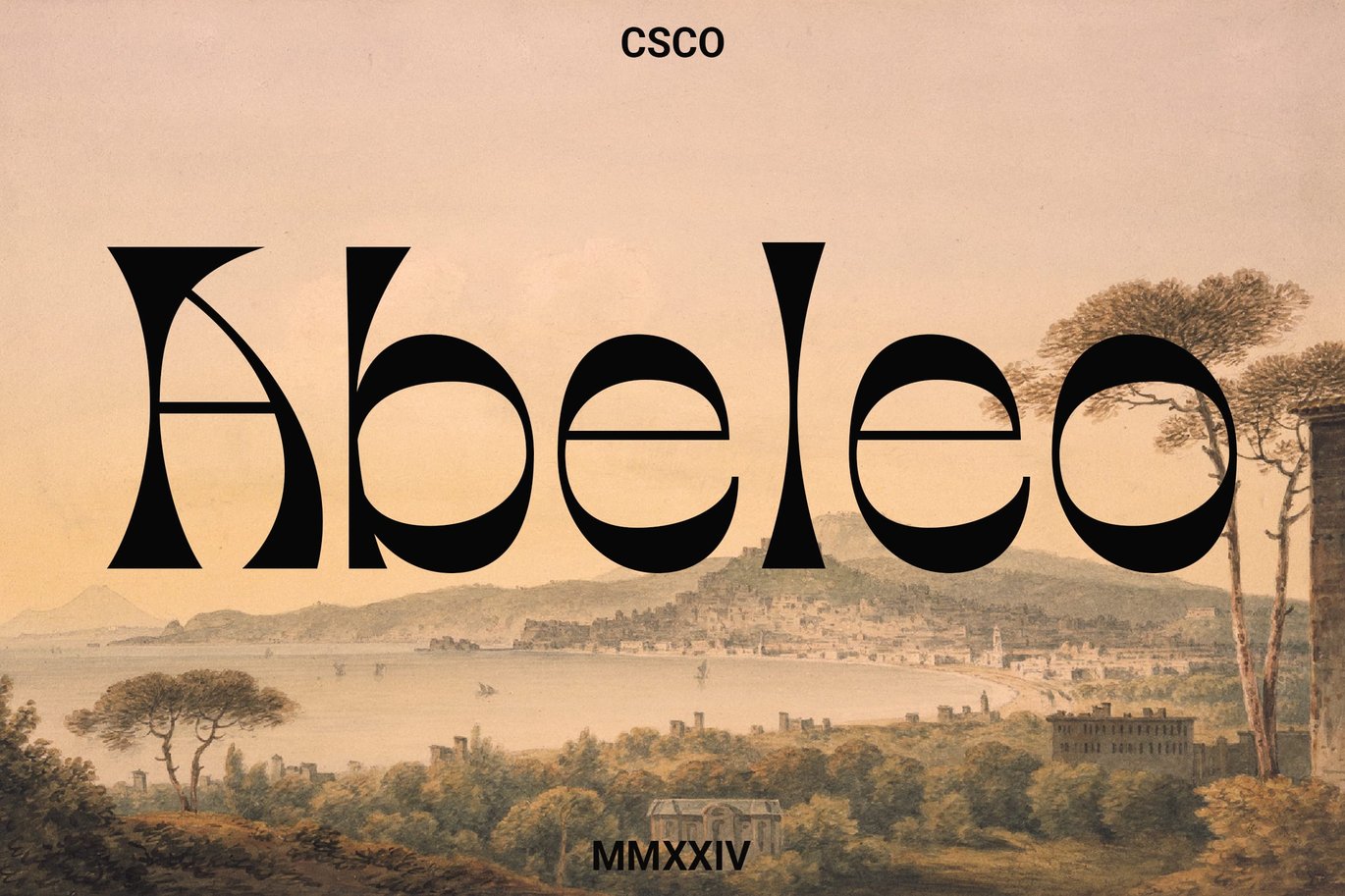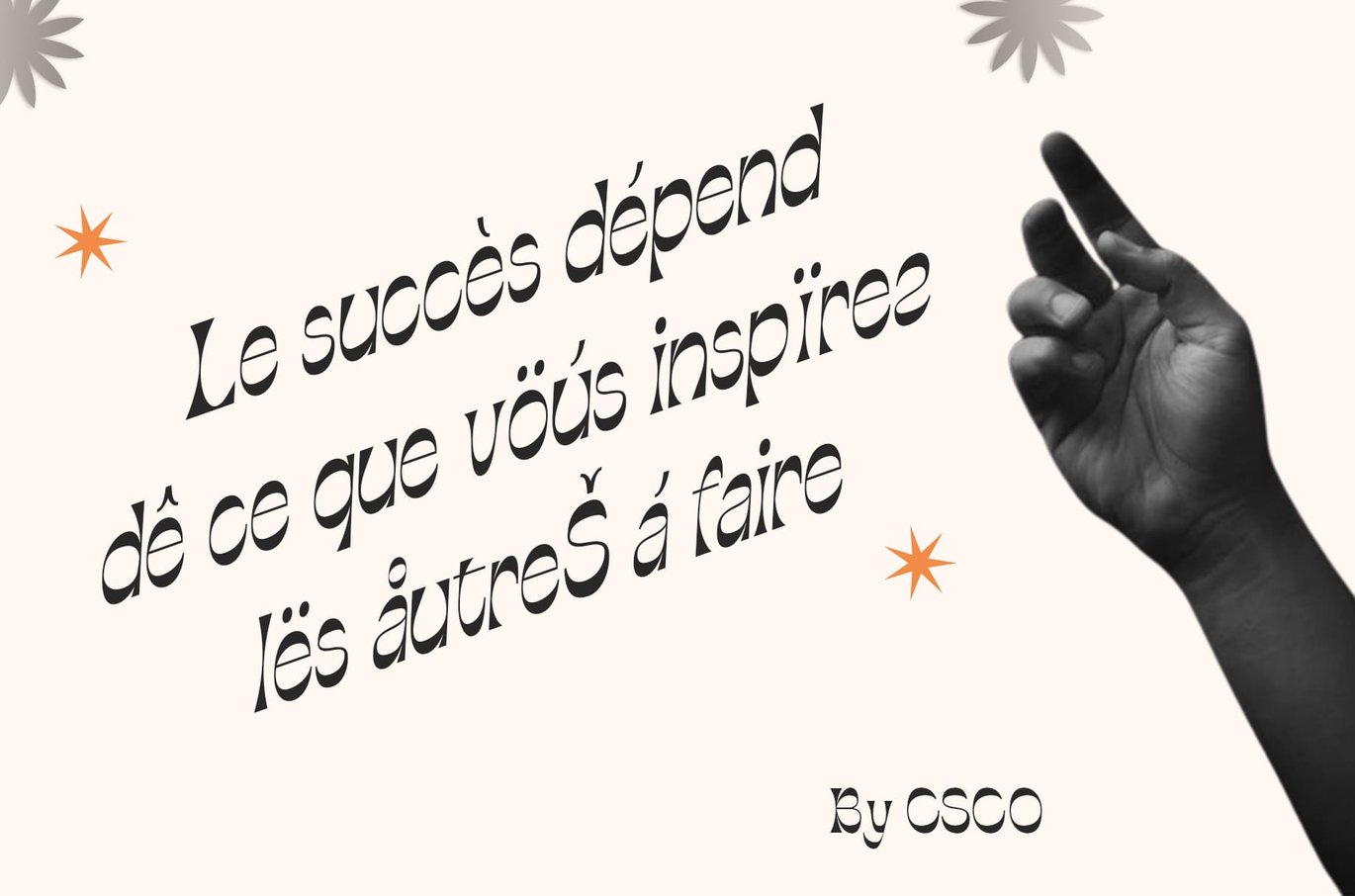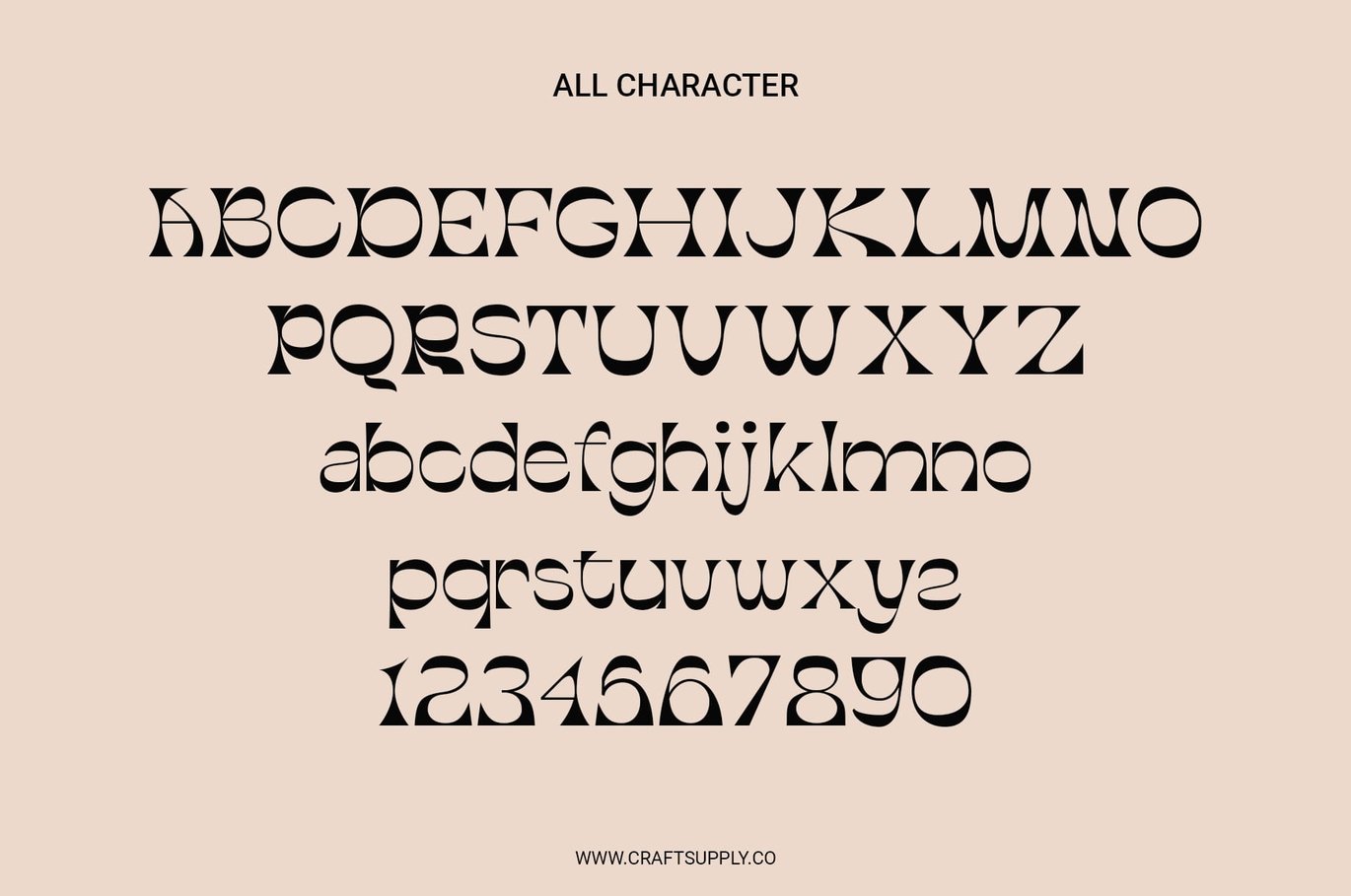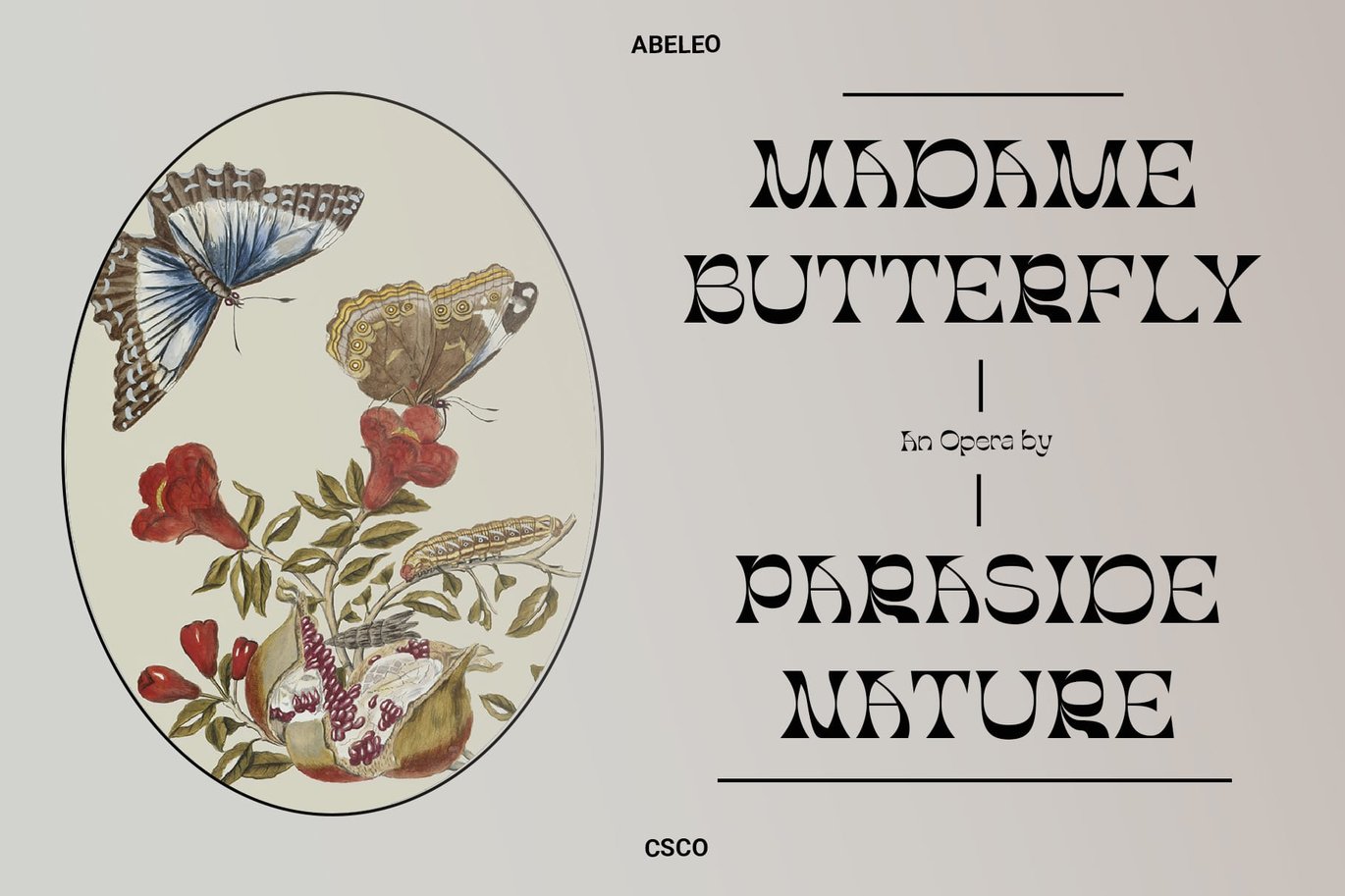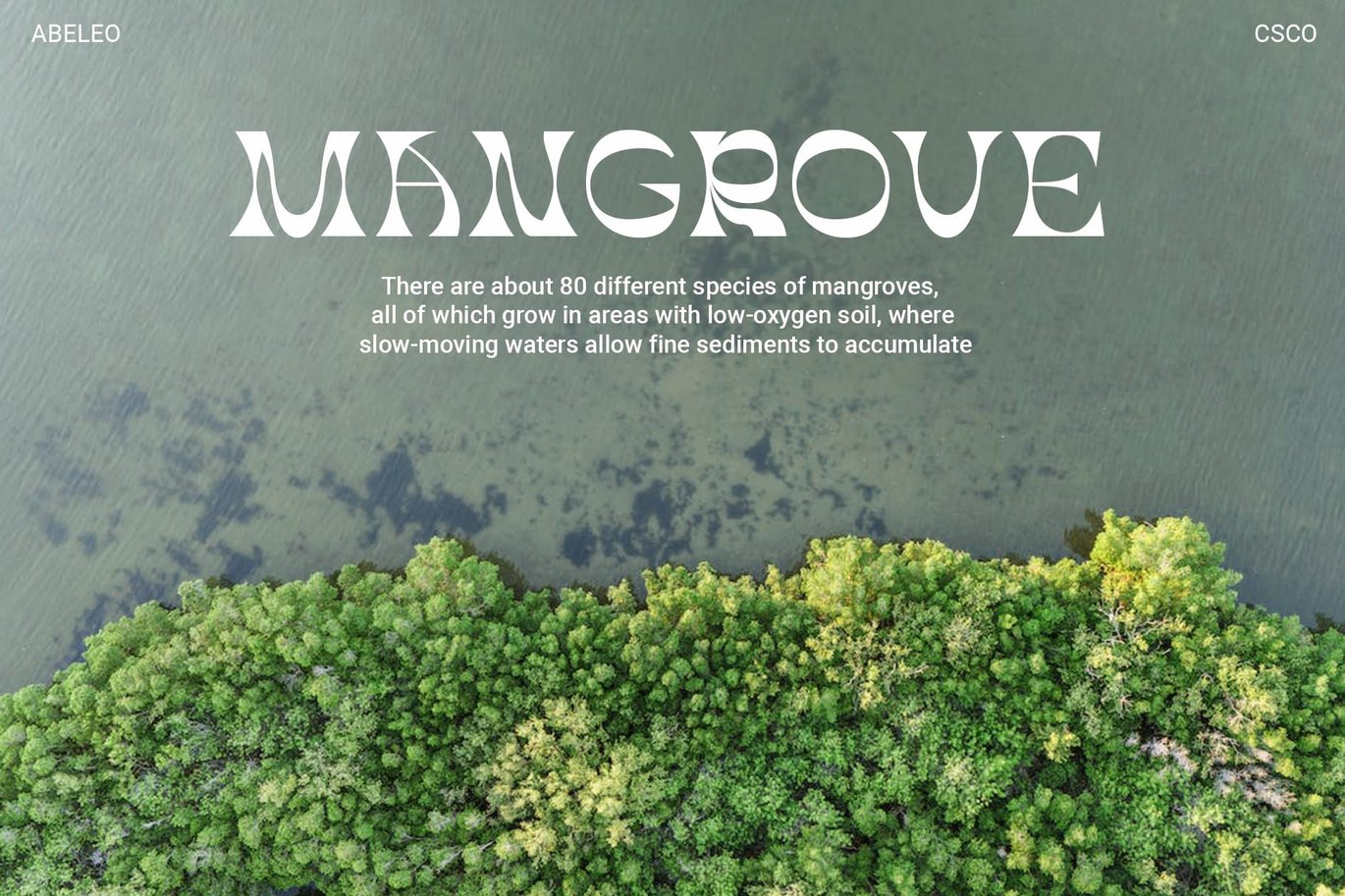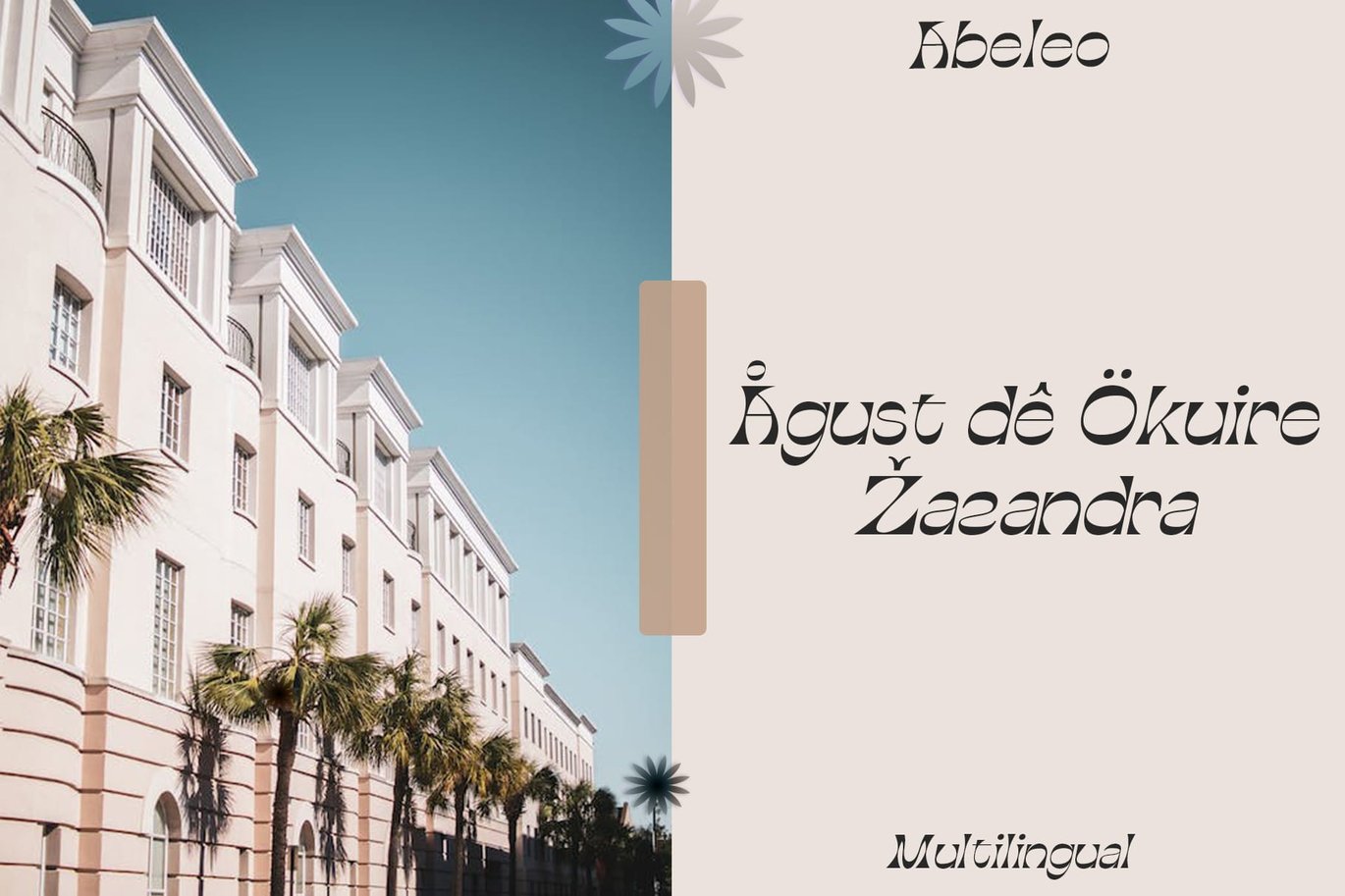
Abeleo – Funky Font
Abeleo: Unleashing Funkiness in Typography
Funky Fascination
Abeleo, the epitome of funkiness in fonts, breaks free with its quirky design, ensuring a vibrant presence that sparks creativity.
Contrast that Captivates
Abeleo’s inverted contrast adds an irresistible visual appeal, making it a captivating choice for any display where uniqueness matters.
Elevate Your Designs
More than a font, Abeleo is a design revolution, injecting life and energy into every character, creating an unforgettable impression.
Diverse Applications
Versatile for posters, branding, or digital graphics, Abeleo guarantees a vibrant and dynamic impact on any design canvas, allowing creativity to soar.
Conclusion
Abeleo is not just an ordinary font; it’s a statement. Dive into funky typography and let Abeleo be the bold, vibrant choice that transforms your designs, making them stand out with a touch of unconventional charm. Explore endless possibilities with Abeleo today!